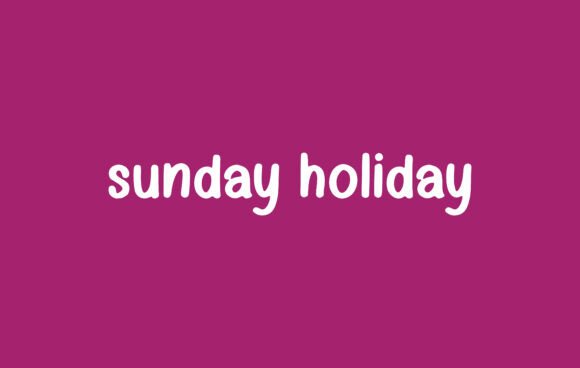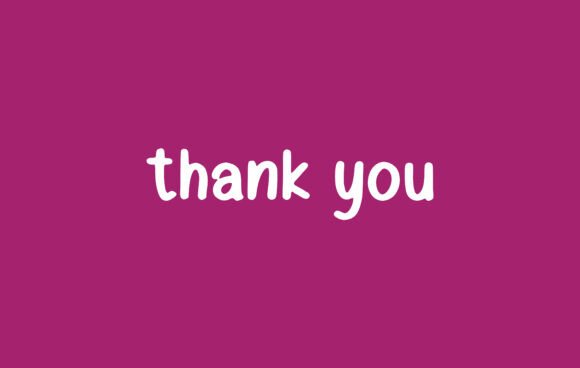
The 80s Matrix Font: A Retro-Romantic Dream Come True
Ah, the elusive perfect font. You know, that one that makes your design project go from meh to mesmerizing. I’ve been there, done that, and got the t-shirt (which, by the way, was probably designed with a font that wasn’t quite right). But today, I’m excited to share with you a font that might just be the holy grail of typography for many creatives: the 80s Matrix font.
A Personal Design Moment
I recall working on a wedding invitation project last year. The couple wanted a vintage vibe with a romantic twist. I scoured font libraries, but nothing seemed quite right. That was until I stumbled upon the 80s Matrix font. Its handwritten charm with a romantic touch was love at first sight! I used it for the invitation, and it set the tone perfectly for the couple’s special day. I’ve been hooked ever since.
- ✨ Authentic Handwritten Feel: The 80s Matrix font has a genuine, handcrafted look that adds a personal touch to any design.
- ✅ Legibility: Despite its unique style, this font is remarkably legible, making it perfect for both title and body text.
- 💕 Romantic Touch: It adds a touch of romance and whimsy, ideal for wedding invitations, cards, and other sentimental projects.
- 🎨 Versatility: Suitable for a wide range of designs, from magazine headlines to social media graphics and branding.
While the 80s Matrix font is incredibly versatile, there are a few things to keep in mind:
- 🤔 Limited Use in Serif-Heavy Designs: This font is best used as a standout element. Mixing it with too many serif fonts might create visual clutter.
- ⚠️ Glyph Limitations: As with many handwritten fonts, the range of glyphs might be limited compared to more comprehensive typefaces.
The 80s Matrix font draws inspiration from the iconic typography of the 1980s, blended with a modern romantic twist. Imagine a time when neon lights illuminated cityscapes and video games transported us to new worlds. This font captures the essence of that era, bringing a nostalgic feel to contemporary designs.
Q: Is the 80s Matrix font suitable for body text?
A: Yes, the 80s Matrix font is legible and can be used for body text, especially in designs where a personal touch is desired.
Q: Does the 80s Matrix font support multiple languages?
A: The font’s language support may vary; check the font details for specific information on language support.